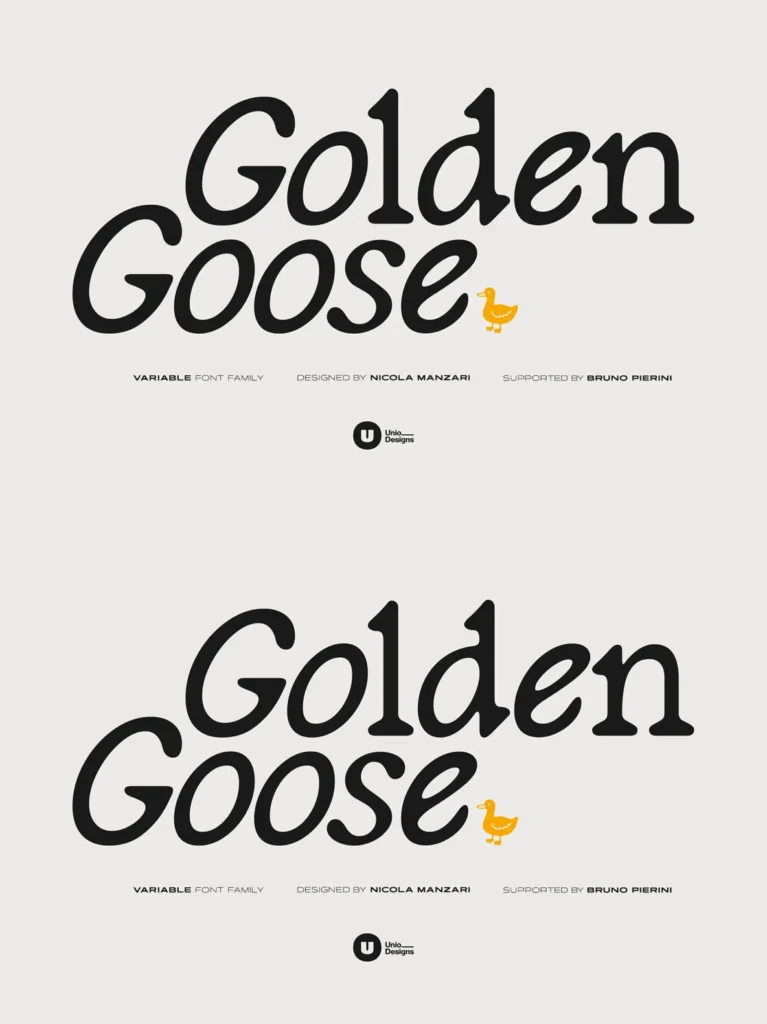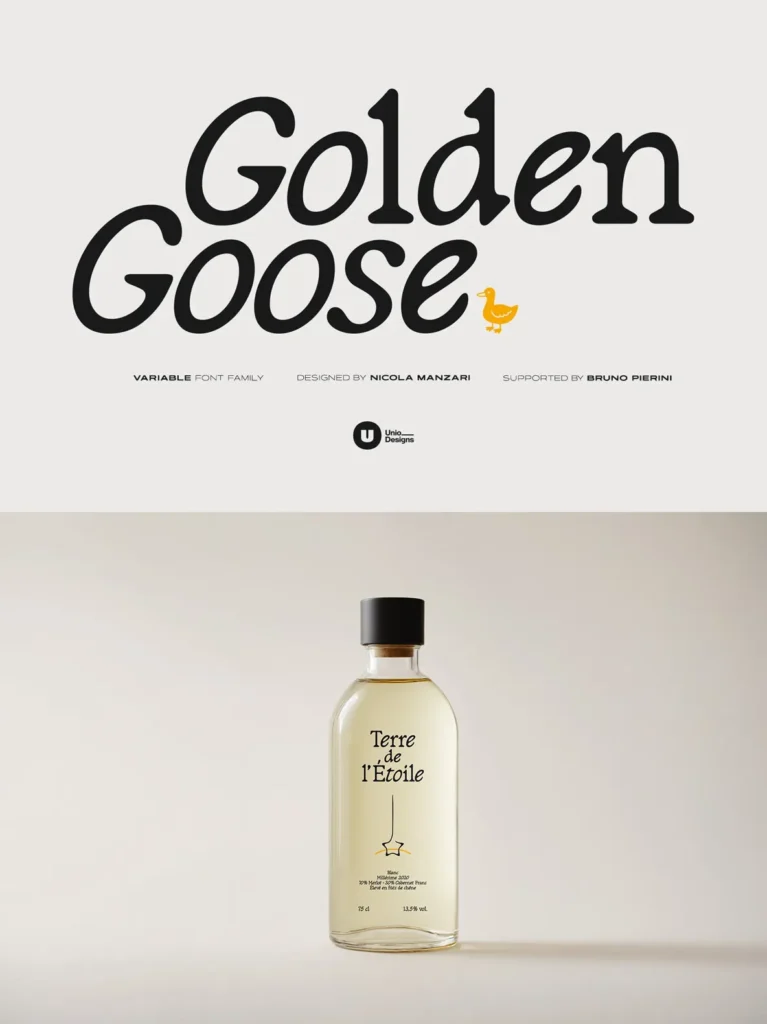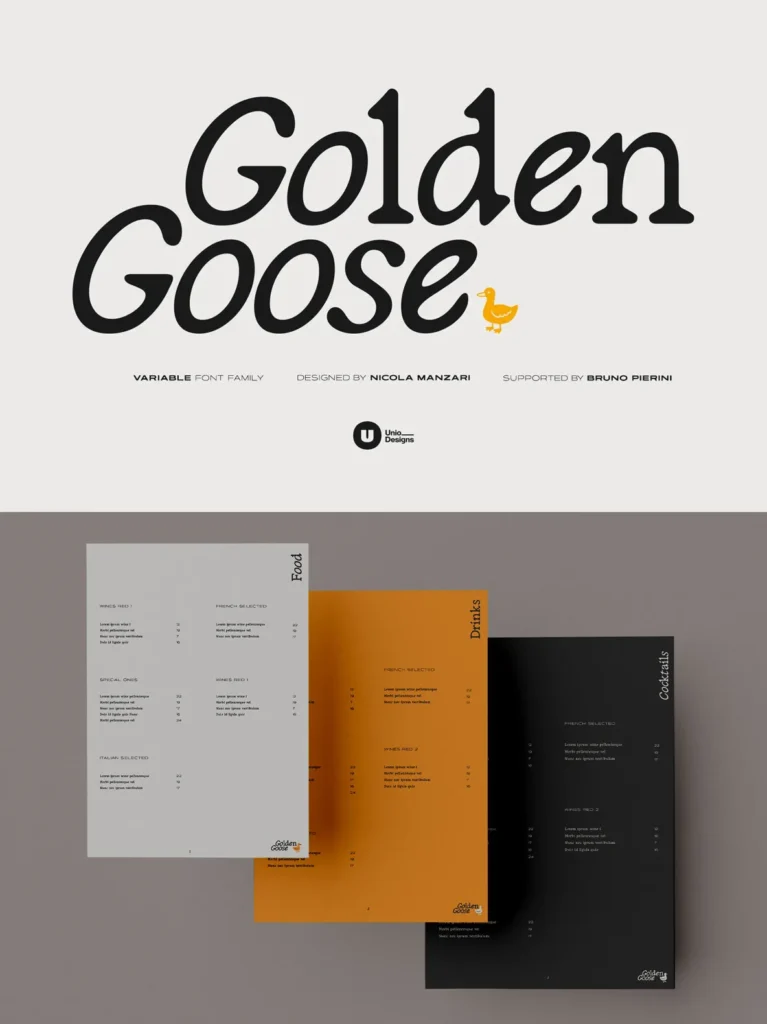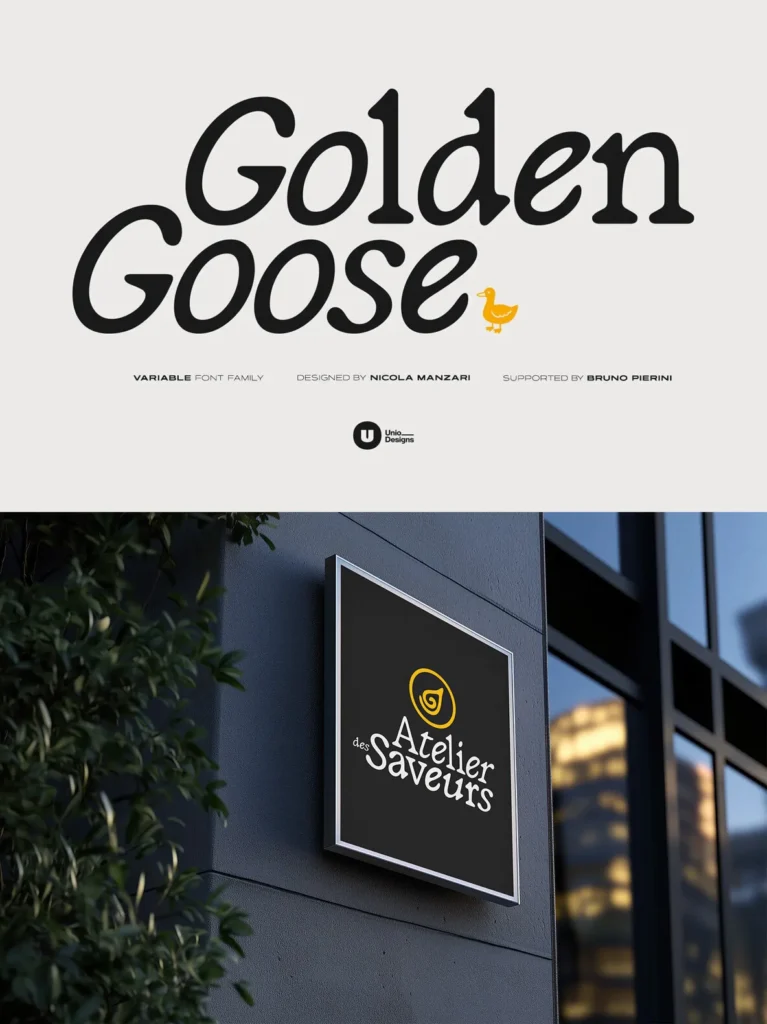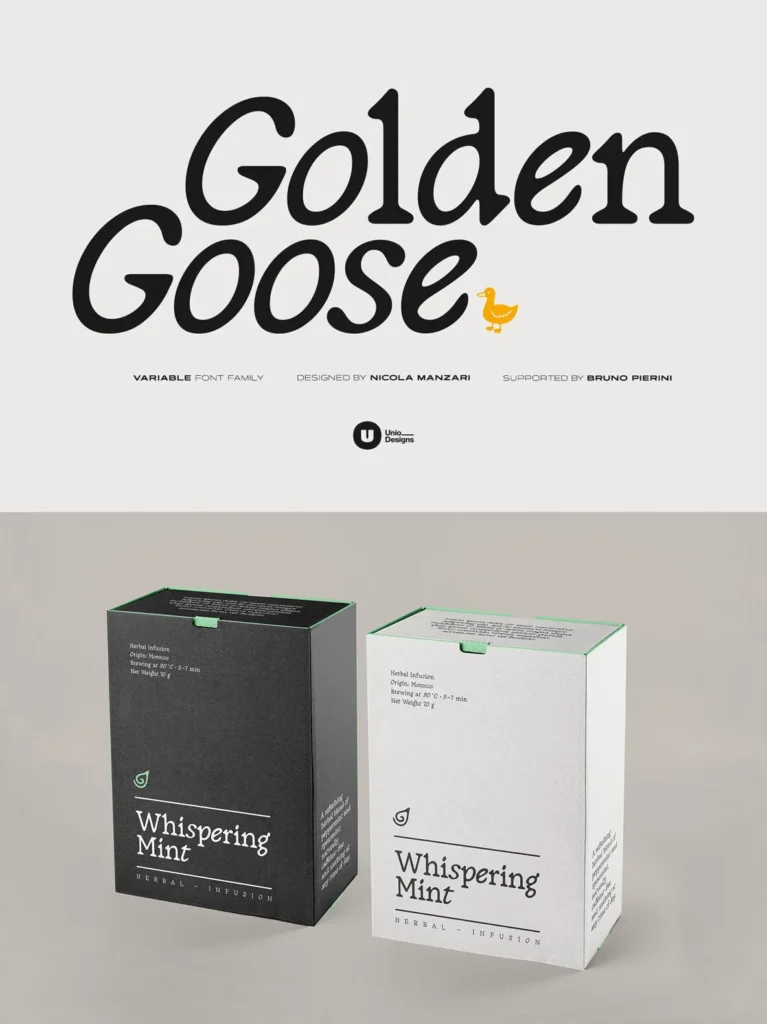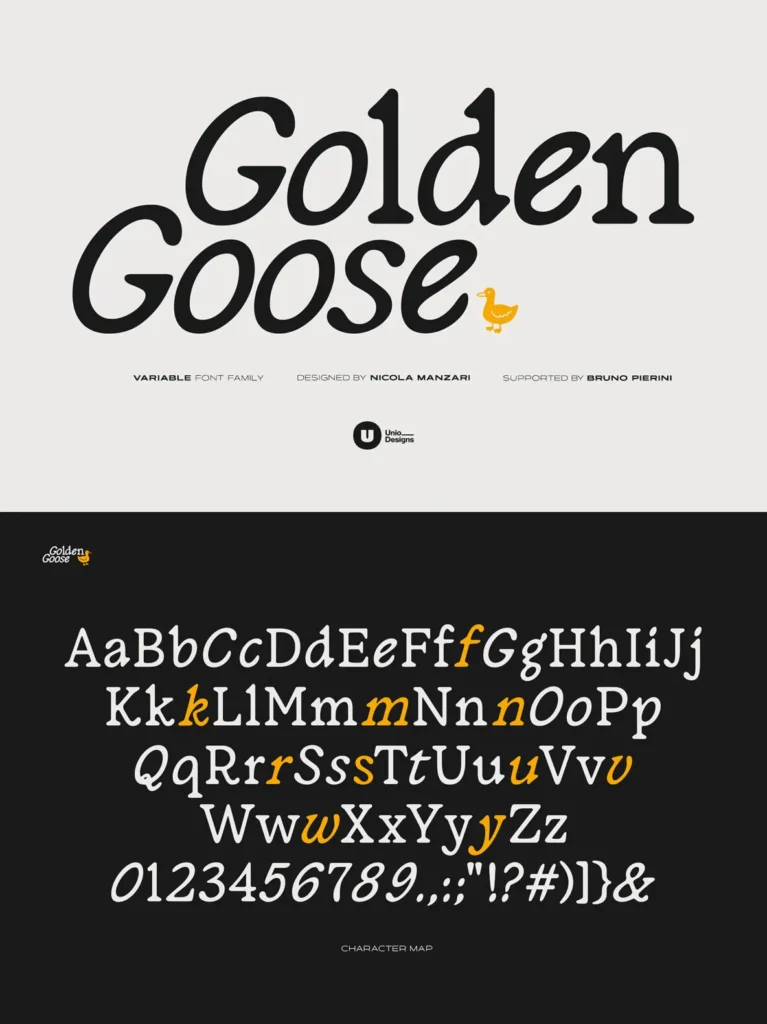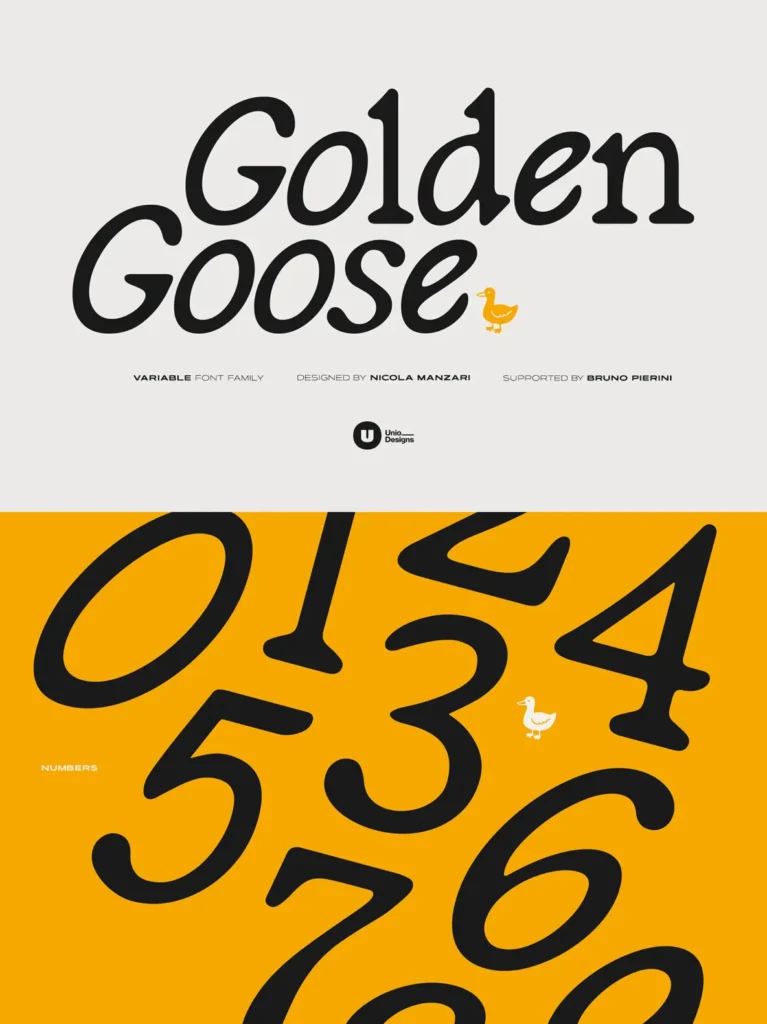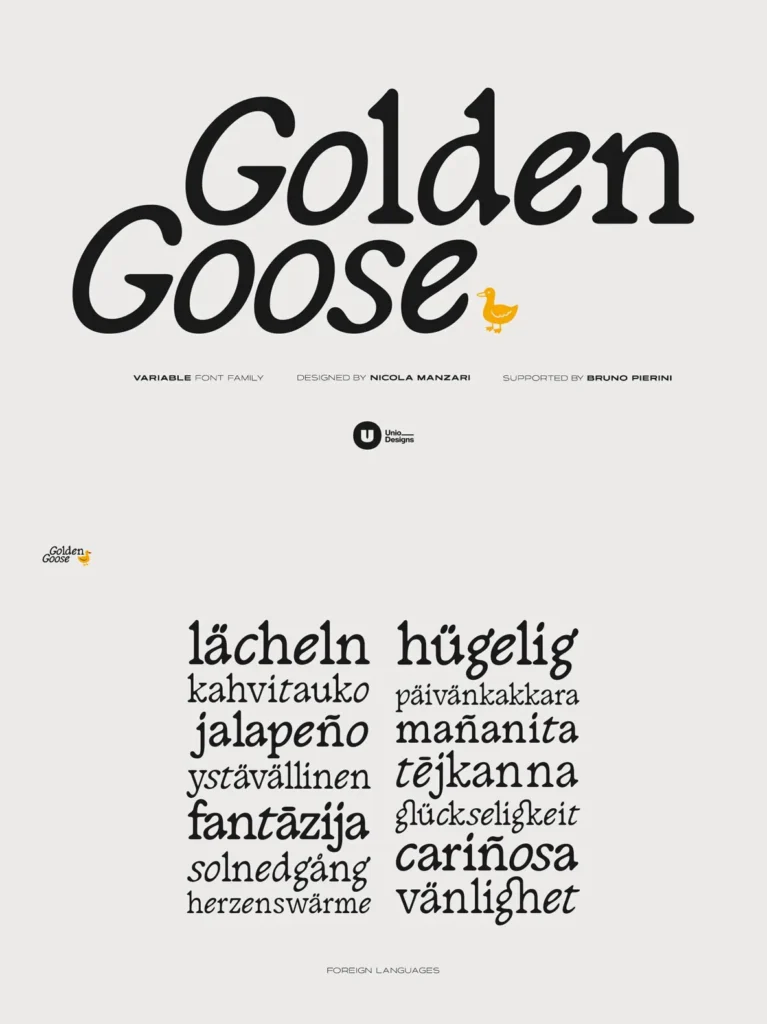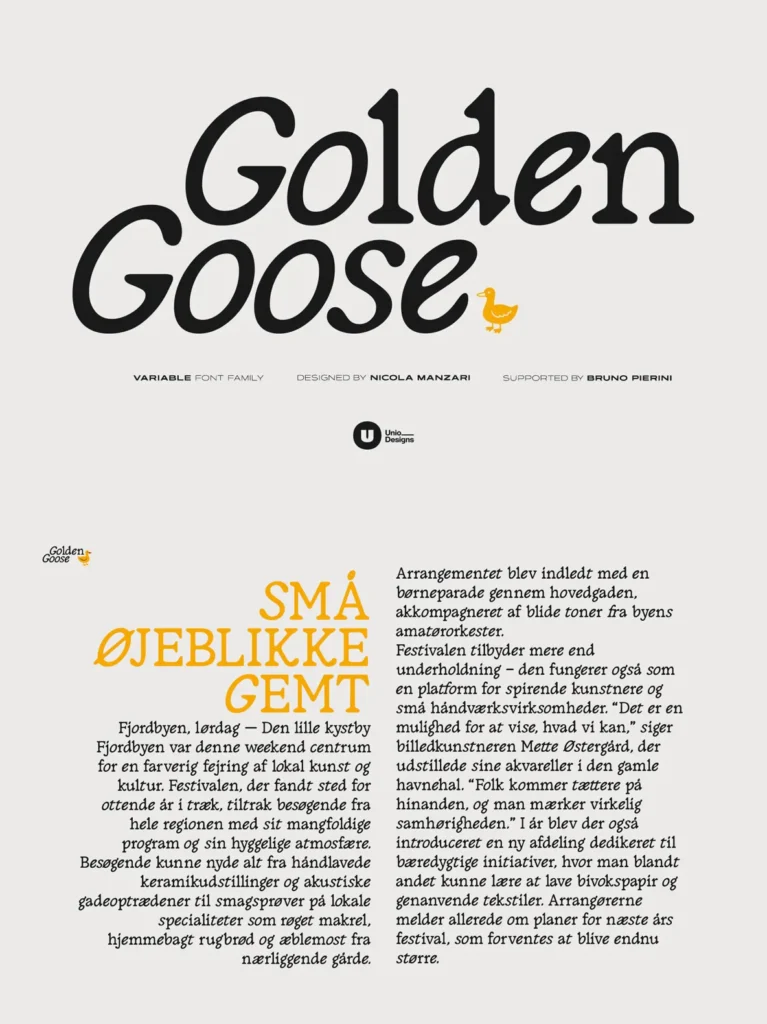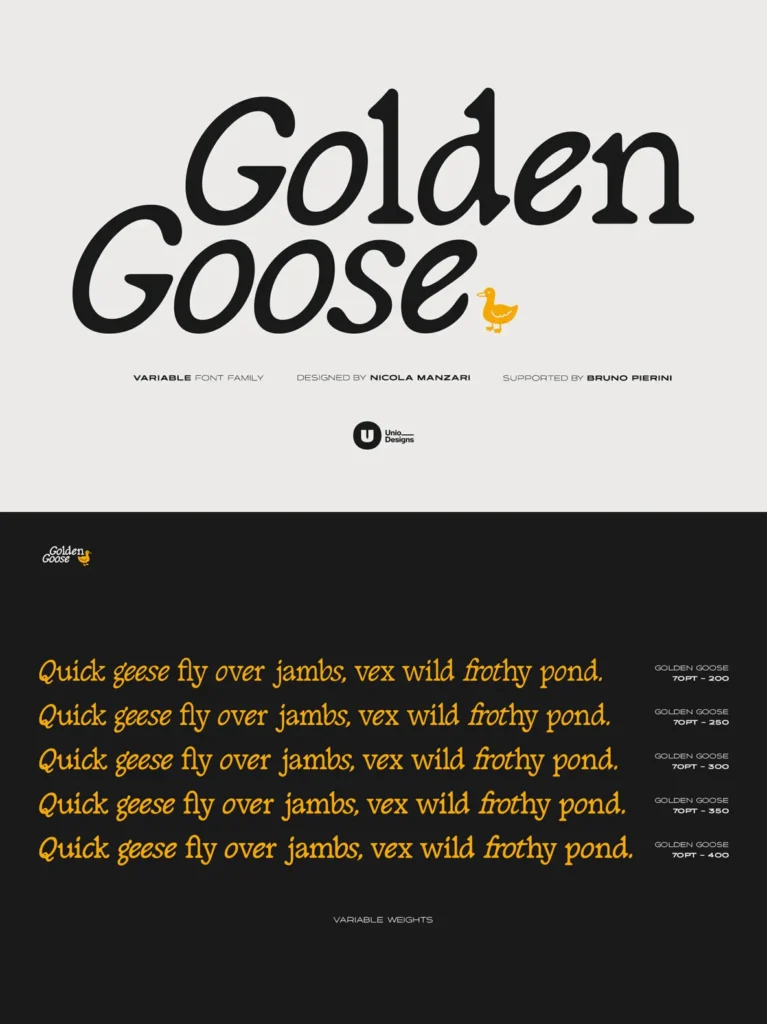
Golden Goose Font
Golden Goose — Serif With a Natural Slant
Golden Goose takes a distinctive approach to serif typography by building italic character into the regular style. A calibrated slant runs through the round letters, giving the face an organic flow while keeping its serif structure clear and dependable. The result feels warm and human, yet remains controlled enough for professional typography.
Drawn with meticulous attention to detail, Golden Goose pairs handmade curves with a solid serif foundation. The variable build includes two essential weights and moves smoothly from a light, airy tone to a more solid, authoritative presence. Use it across branding, editorial design, packaging, and print identities when you want craft, clarity, and personality in the same serif typeface.
Features
Italic Traits
– Fused into round forms for an authentic expression.
Variable Font
– Includes Light and Regular weights.
Enhanced Features
– Includes ligatures, alternates, numerals, and symbols.
Optimized Spacing
– Suitable for both text and display settings.
Multilanguage Support
– Comprehensive Latin script coverage with Western and Central European diacritics.
Golden Goose fits projects that need a crafted blend of warmth and precision, without sacrificing readability. It brings a subtle motion to headlines and a calm rhythm to text, making it a reliable choice for serif typography that feels considered and quietly expressive.